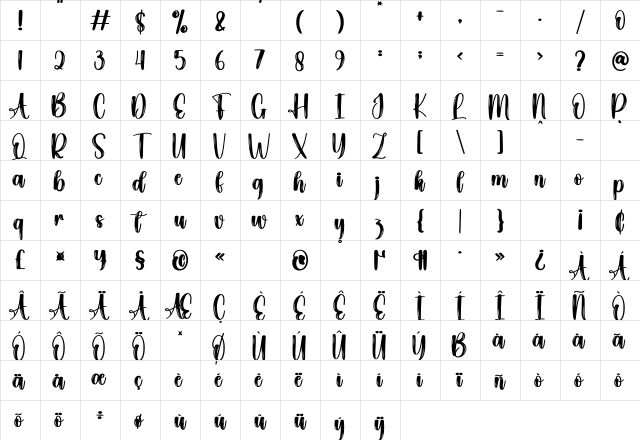
Bally Regular
Design Context for Bally
Bally is a composed and adaptable typeface that performs quietly and consistently across a wide range of design contexts.